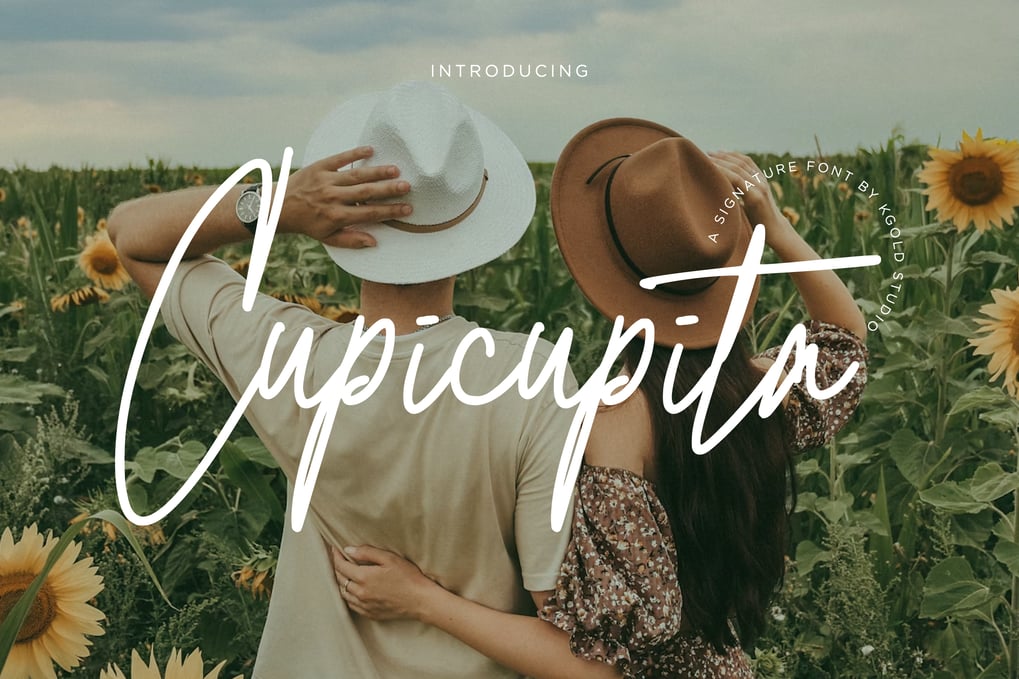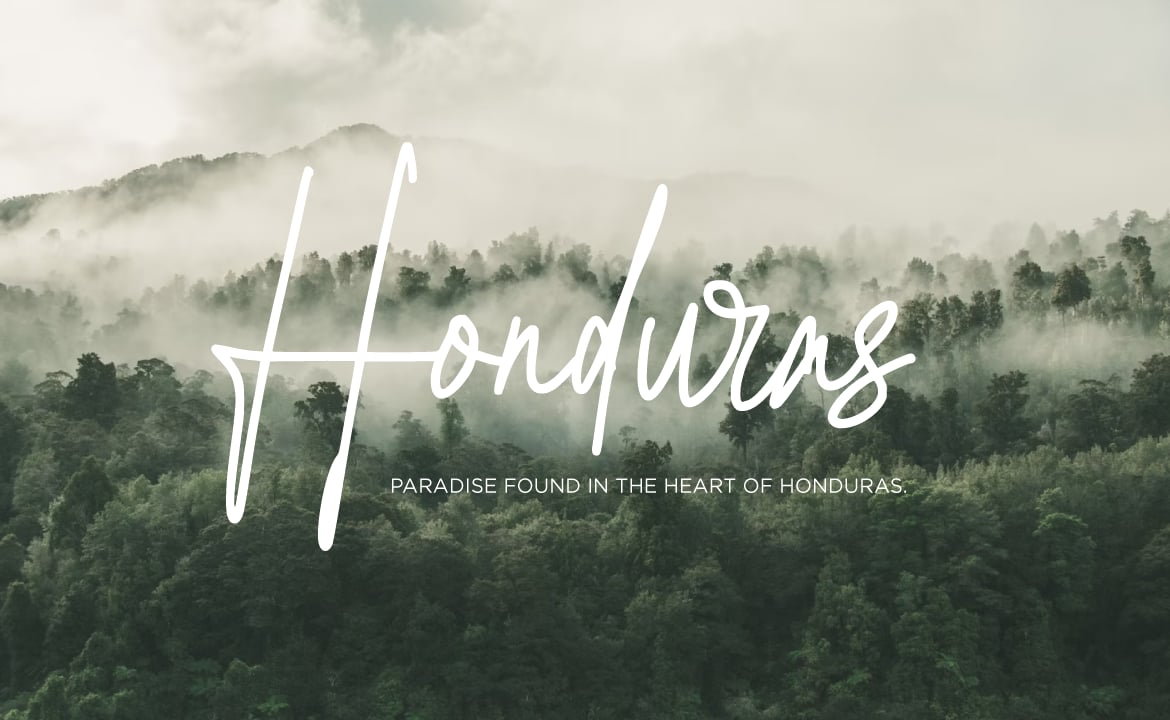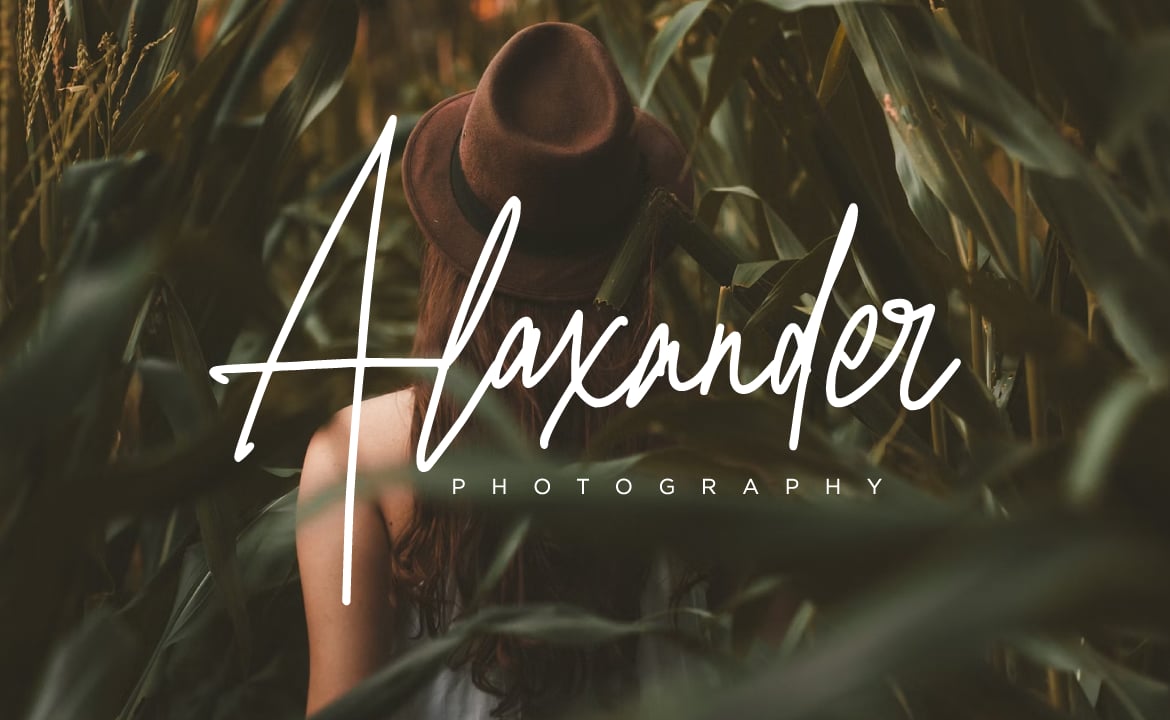
Cupicupita – Signature font
* Handwritten Elegance: Capturing the fluidity and charm of natural handwriting, Cupicupita adds a personal and intimate touch to any project.
* Beauty and Grace: Delicate strokes and subtle curves imbue this font with a sense of beauty, making it perfect for projects focused on aesthetics and elegance.
* Nature-Inspired: The organic flow and natural design elements reflect the serenity and charm of nature, making your text feel more alive and connected to the earth.
* Signature Style: With its sophisticated and stylish look, Cupicupita is ideal for creating signature logos, personal branding, and any design that needs a bespoke touch.
* Versatile Applications: Perfect for wedding stationery, greeting cards, product packaging, social media graphics, and more. Cupicupita shines in both digital and print formats.
* Multiple Variants: Includes various weights and styles, providing flexibility and creative options to suit different design needs.